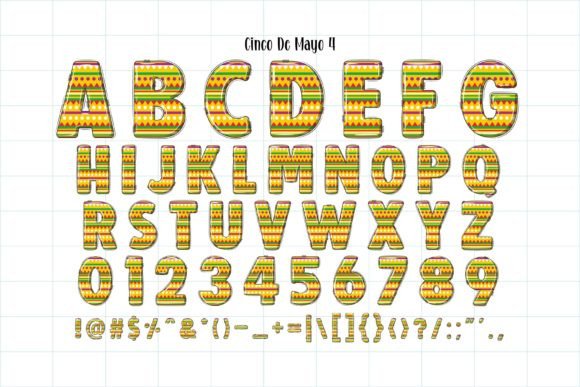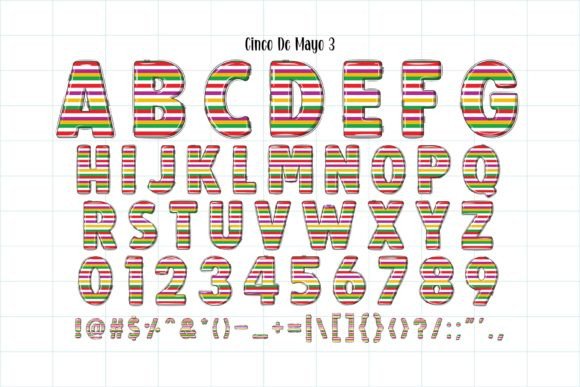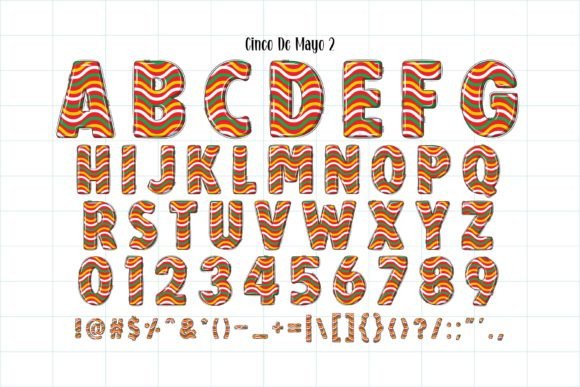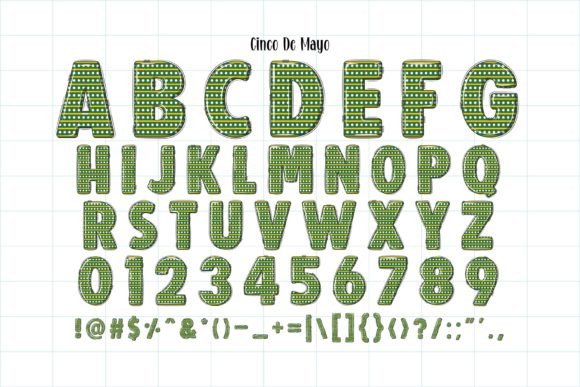
Cinco De Mayo Font: Celebrate with Vibrant Flair!
Are you looking to add a touch of festive fun to your party invitations, posters, or craft projects? Look no further than the Cinco De Mayo font! This whimsically chubby font type is richly adorned with adorable stars and endearing Mexican motifs, truly capturing the ebullience of a festive fiesta. In this article, we’ll dive into the world of the Cinco De Mayo font and explore how it can bring a playful zest to your designs.
What is the Cinco De Mayo Font?
The Cinco De Mayo font is a unique and eye-catching typeface that embodies the vibrant spirit of celebration. Its distinctive charm lies in its chubby, rounded letters, adorned with tiny stars and Mexican-inspired motifs. This font is perfect for designers and crafters looking to add a touch of whimsy and fun to their projects.
Perfect for Party Invitations and Cinco De Mayo Projects
The Cinco De Mayo font is specifically designed to bring life to party invitations and Cinco De Mayo projects. Whether you’re planning a festive fiesta or simply want to add a touch of Mexican flair to your designs, this font is the perfect choice. Imagine creating eye-catching invitations that set the tone for a fun and lively celebration. With the Cinco De Mayo font, you can:
- Create vibrant and playful party invitations that will get your guests excited.
- Design festive posters and cards that showcase your creativity.
- Add a touch of Mexican culture to your craft projects, such as fabric prints, DIY decorations, and more.
Adding a Playful Zest to Posters and Cards
The Cinco De Mayo font is not just limited to party invitations. Its playful and whimsical design makes it perfect for adding a touch of fun to posters and cards. Whether you’re creating:
- Festive posters to promote a Cinco De Mayo event.
- Personalized cards for special occasions, such as birthdays or holidays.
- Eye-catching flyers for a Mexican-themed restaurant or business.
the Cinco De Mayo font is sure to add a playful zest that will grab attention and leave a lasting impression.
Fabric Prints and More
One of the most exciting aspects of the Cinco De Mayo font is its versatility. Not only is it perfect for digital designs, but it also looks fantastic on fabric prints. Imagine creating:
- Vibrant fabric prints featuring your favorite Mexican-inspired designs.
- Customized tote bags, t-shirts, or aprons with a playful Cinco De Mayo theme.
- Beautiful home decor items, such as pillowcases or wall hangings, that showcase your creativity.
With the Cinco De Mayo font, you can bring a touch of festive fun to a wide range of fabric prints and craft projects.
Immersing in the Colorful Culture of Mexico
The Cinco De Mayo font is more than just a typeface – it’s a celebration of Mexican culture. With its vibrant colors and playful design, this font allows you to immerse yourself in the rich heritage of Mexico. Whether you’re a designer, crafter, or simply someone who loves to celebrate, the Cinco De Mayo font is the perfect way to:
- Learn about and appreciate Mexican culture.
- Add a touch of authenticity to your designs and projects.
- Join in the festive fun and create memorable experiences.
In conclusion, the Cinco De Mayo font is a unique and exciting typeface that embodies the vibrant spirit of celebration. With its whimsically chubby letters, adorable stars, and endearing Mexican motifs, this font is perfect for designers and crafters looking to add a touch of festive fun to their projects. Whether you’re creating party invitations, posters, cards, or fabric prints, the Cinco De Mayo font is sure to bring a playful zest that will leave a lasting impression. So why not immerse yourself in the colorful culture of Mexico and celebrate with the Cinco De Mayo font?